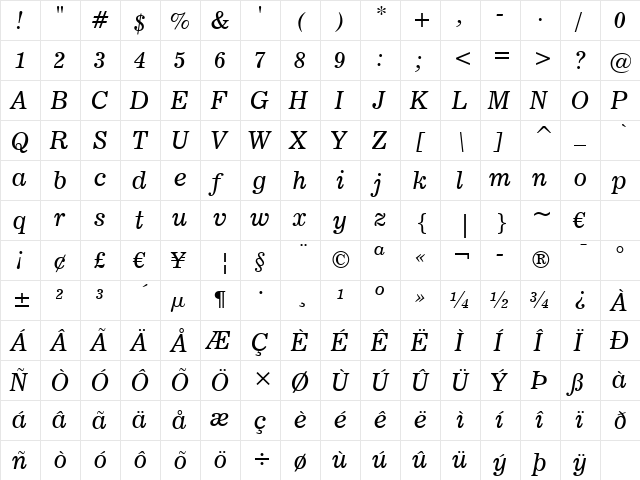
News706 BT Italic
Design Context for News706 BT Typeface
News706 BT takes a measured approach to typography — its balanced proportions and neutral character make it a reliable workhorse for both digital and print work. The slanted form adds forward momentum and visual energy.